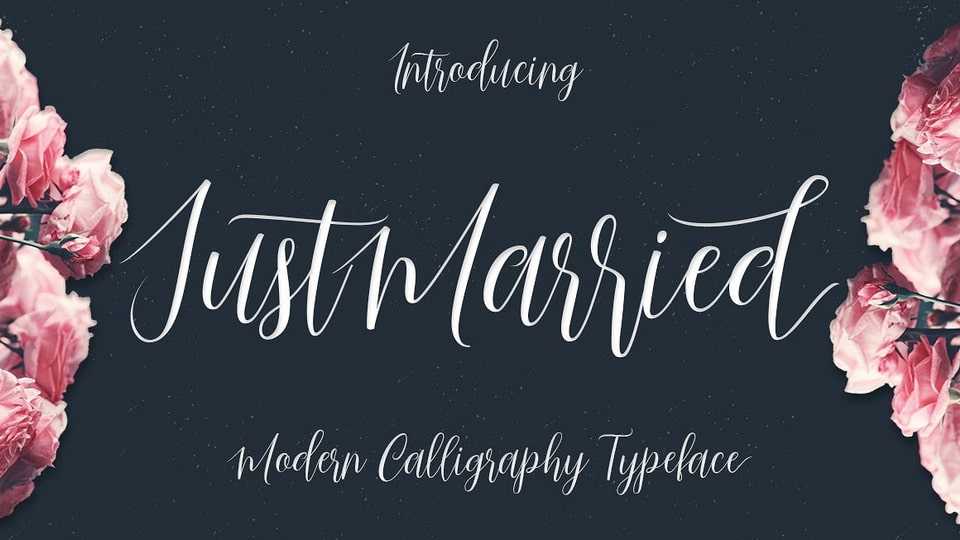
Just Married Font › Fontesk – Download Grátis
Download Just Married Script font, a feminine typeface and handwritten with fun characters. Good for greeting cards, wedding invitations, quotes, posters and many other projects.